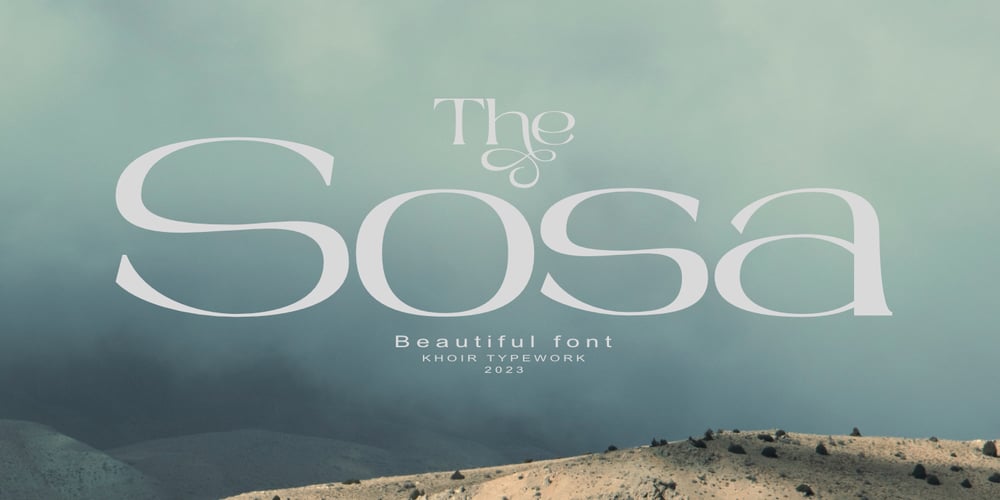
Sosa
Sosa font
Sosa Font Family was designed by Muhammad Romzul Khoir and published by Khoir. Sosa contains 1 styles and family package options. Sosa serif is a classic, elegant font with harmonious thin and bold displays, with exclusive alternatives in each letter and has a unique terminal alternate style making this font the perfect unit for your projects, for poster design, logo design, branding, marcendaise, fashion, clothes and much more.What’s included? Uppercase Characters Lowercase Characters Alternates Support 75+ Language FEATURESSosaSo what are you waiting for? immediately purchase this font, feel free to comment, or send me my PM. Thank you for seeing